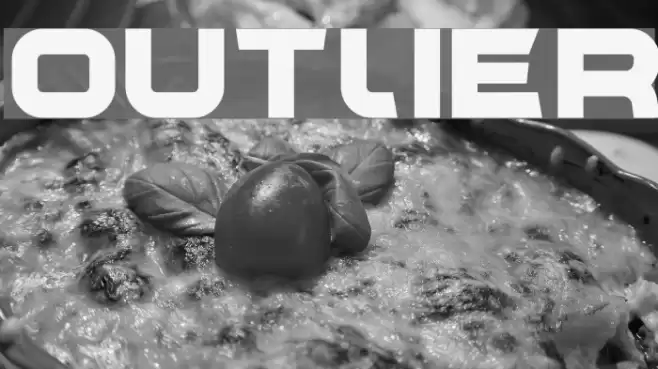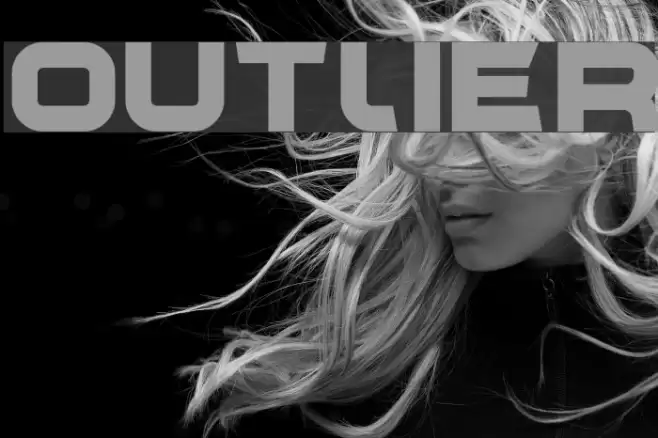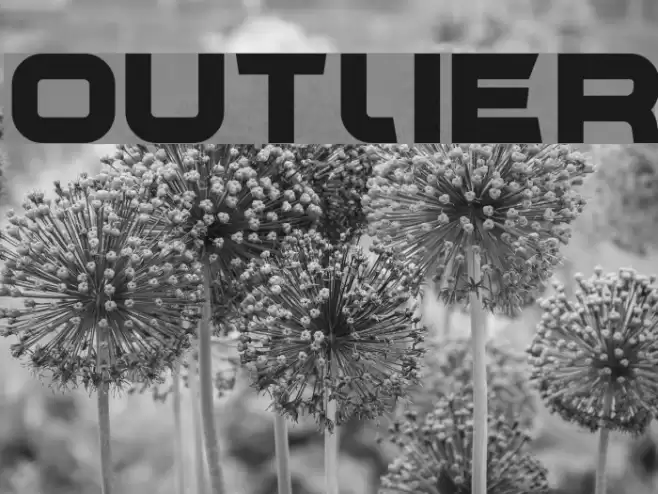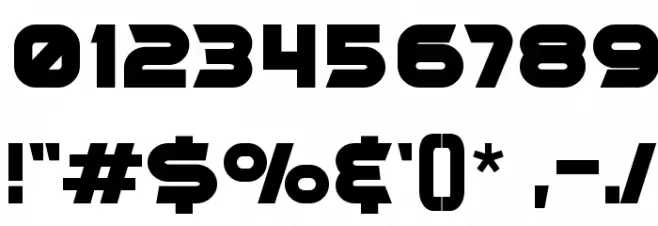
Outlier Font
Outlier Description
This font features a bold and geometric design, characterized by its thick, uniform strokes and angular edges. The uppercase letters are particularly striking, with a strong presence that commands attention. The numerals and special characters maintain the same boldness, ensuring consistency across all text elements. The font's design is modern and assertive, making it suitable for projects that require a strong visual impact. Its clean lines and lack of serifs contribute to a contemporary aesthetic, while the uniformity in stroke width provides a cohesive look. This font is ideal for use in branding, headlines, and any application where a bold statement is desired.
A bold, geometric font with thick, uniform strokes and angular edges from Uncategorized fonts.
- Proposed Projects: Ideal for branding, headlines, posters, and any project requiring a strong visual impact.
- Use Case: Headlines, Logos, Branding